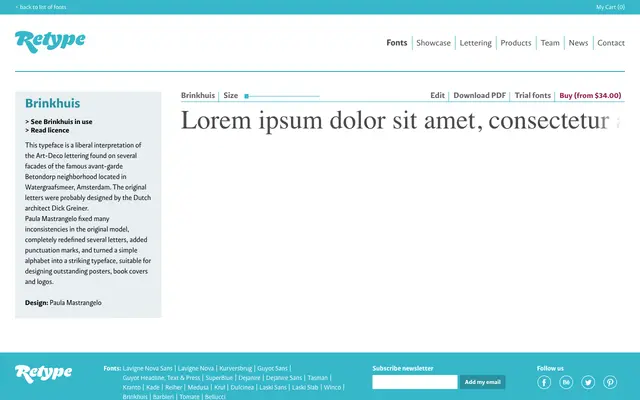
Brinkhuis
seriftransitional serif
Brinkhuis is a serif offered by Retype, a foundry with a strong tradition of Dutch and Latin typeface design. The page provides limited descriptive content, making detailed classification difficult. Trial fonts are available to download before purchase.
Insufficient page content to confirm subcategory with certainty; classified as transitional serif based on the Dutch type tradition Retype typically draws from, pending further detail.